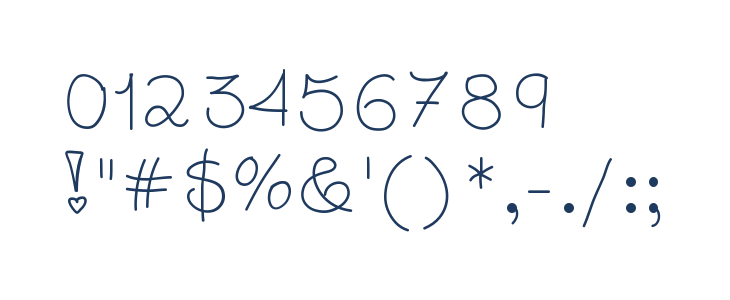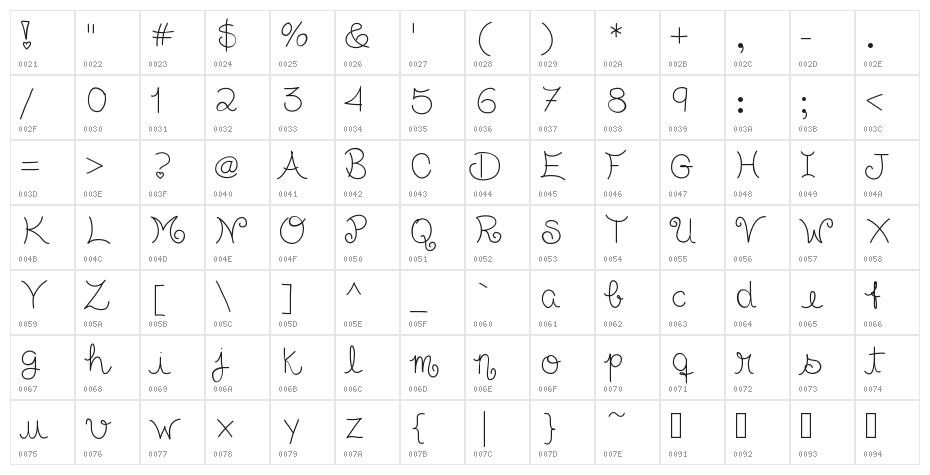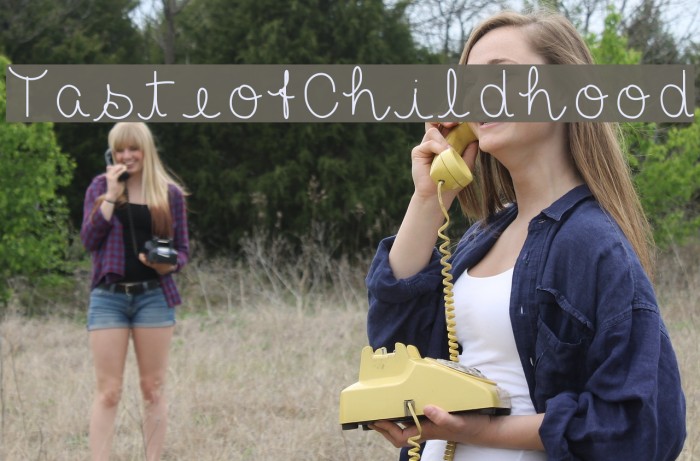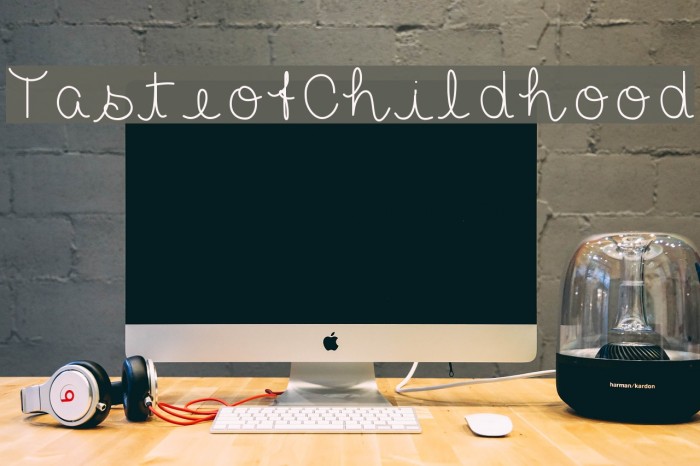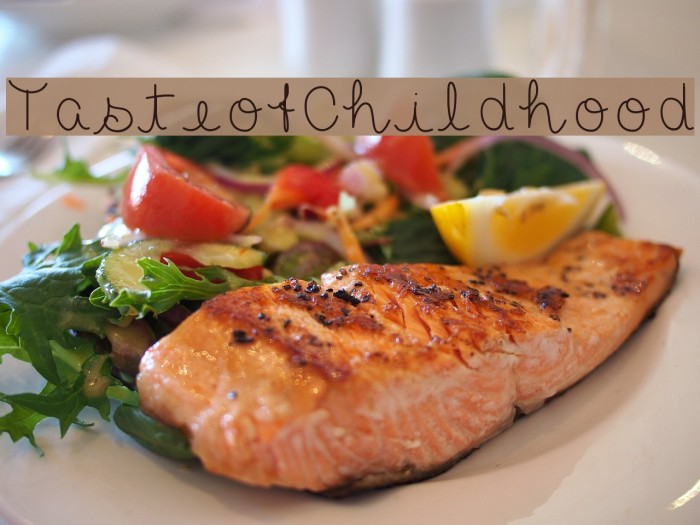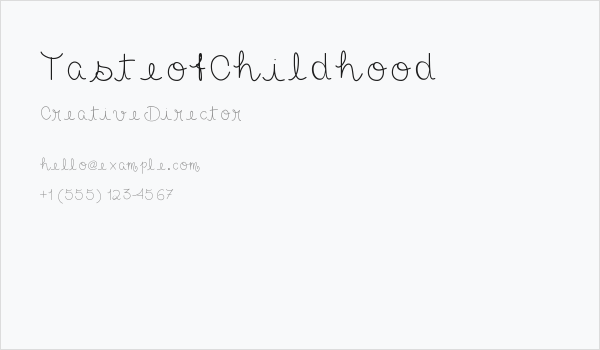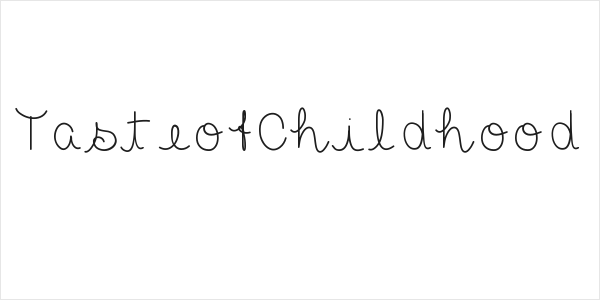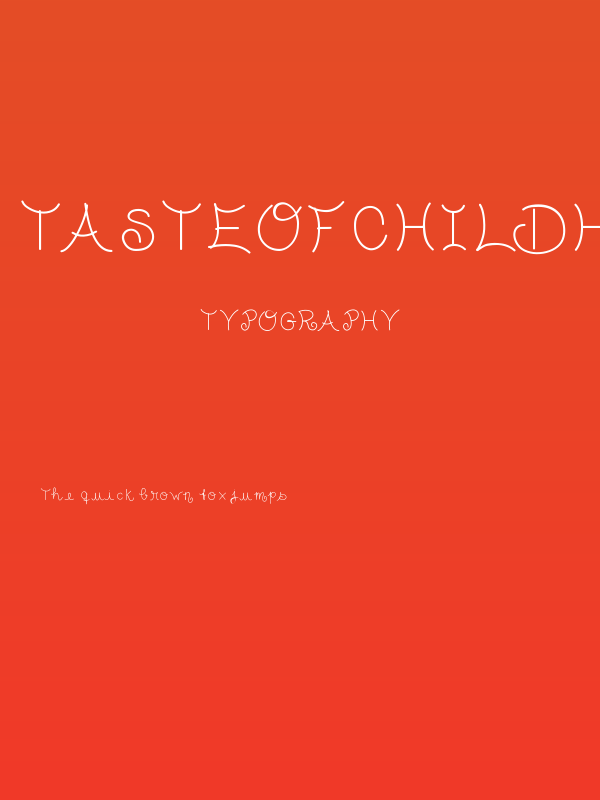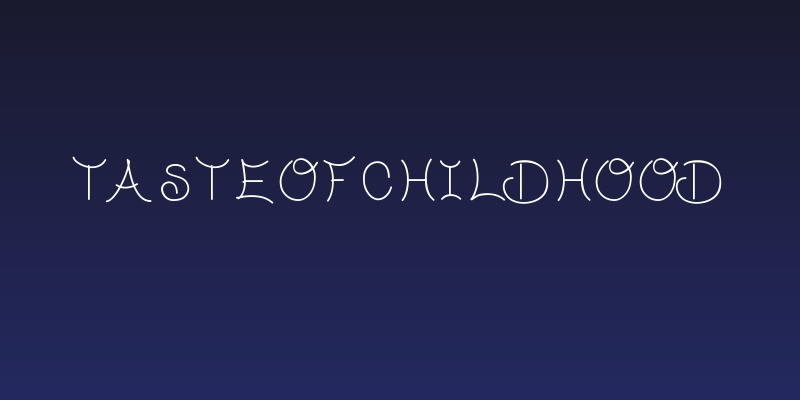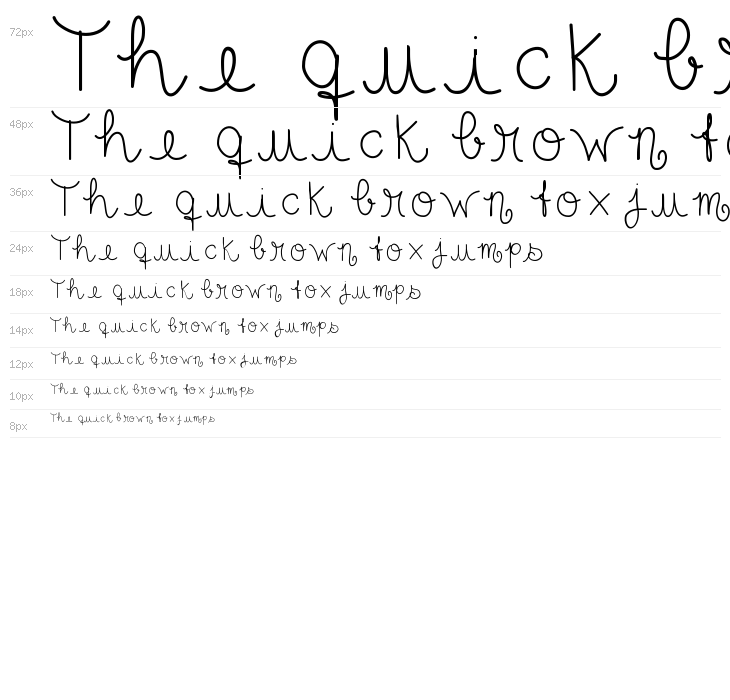
TasteofChildhood Font
TasteofChildhood Description
This whimsical and playful font features a handwritten style with a touch of elegance. The letters are characterized by their curly and flowing lines, giving them a sense of movement and charm. The uppercase letters have a distinctive flair, with some strokes extending beyond the baseline, adding to the font's unique personality. The lowercase letters maintain a consistent style, with rounded edges and a slightly irregular baseline that enhances the handwritten feel. The numerals are bold and clear, making them easily readable while still retaining the font's playful nature. Special characters are creatively designed, fitting seamlessly with the overall aesthetic. This font is perfect for projects that require a touch of whimsy and creativity.
| Proposed Projects | Ideal for children's books, greeting cards, playful branding, and creative invitations. |